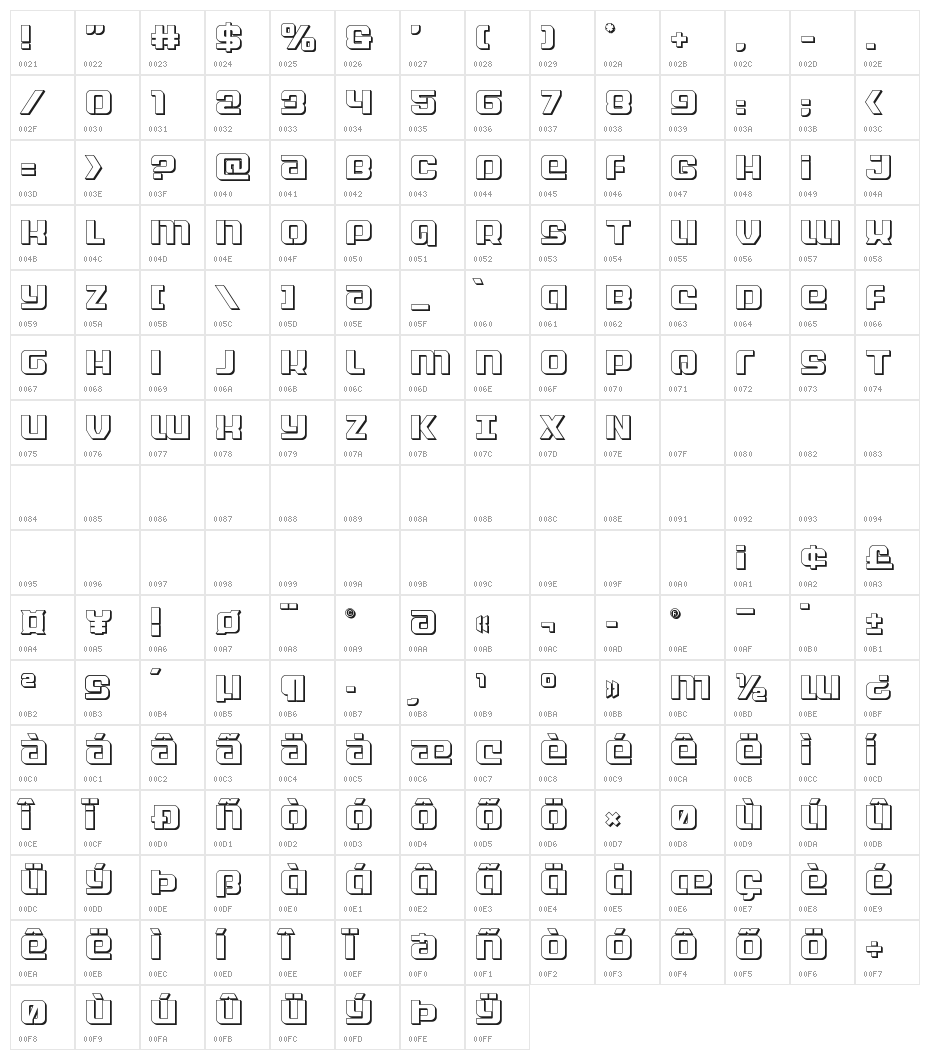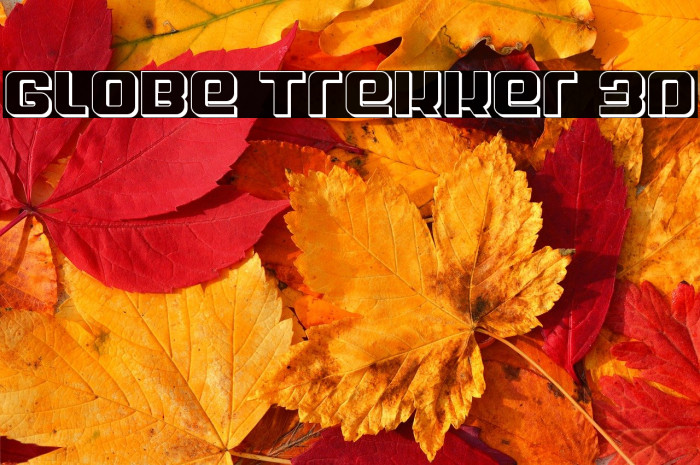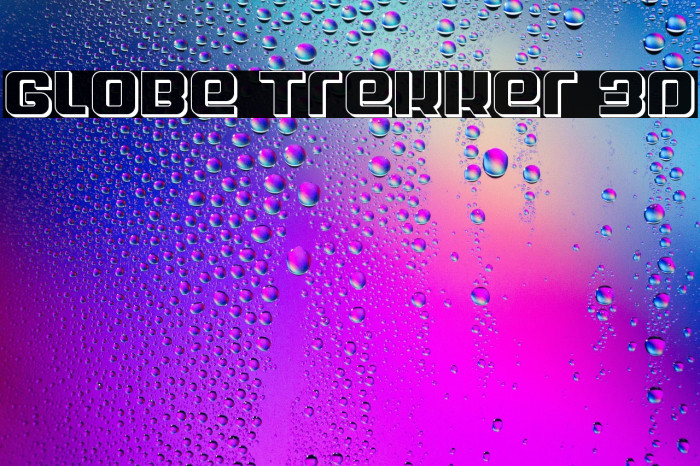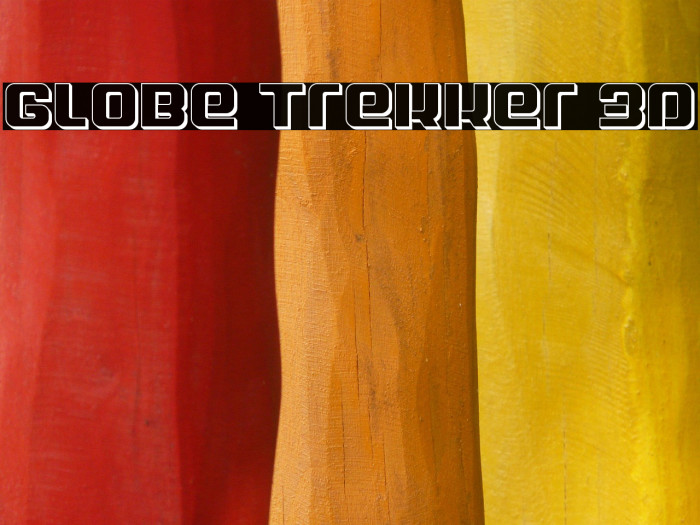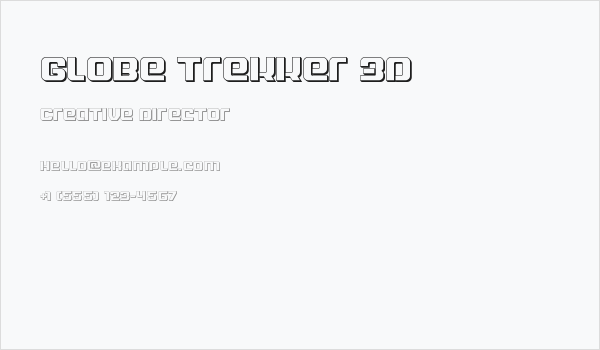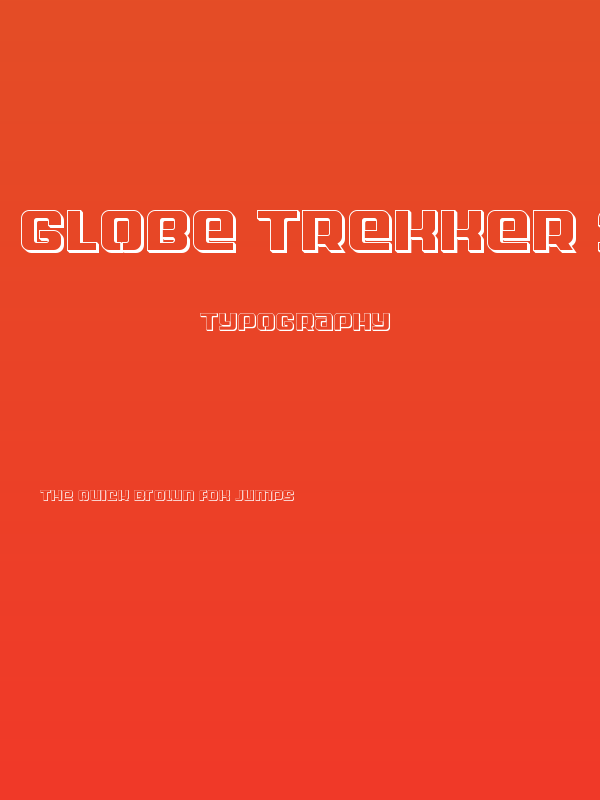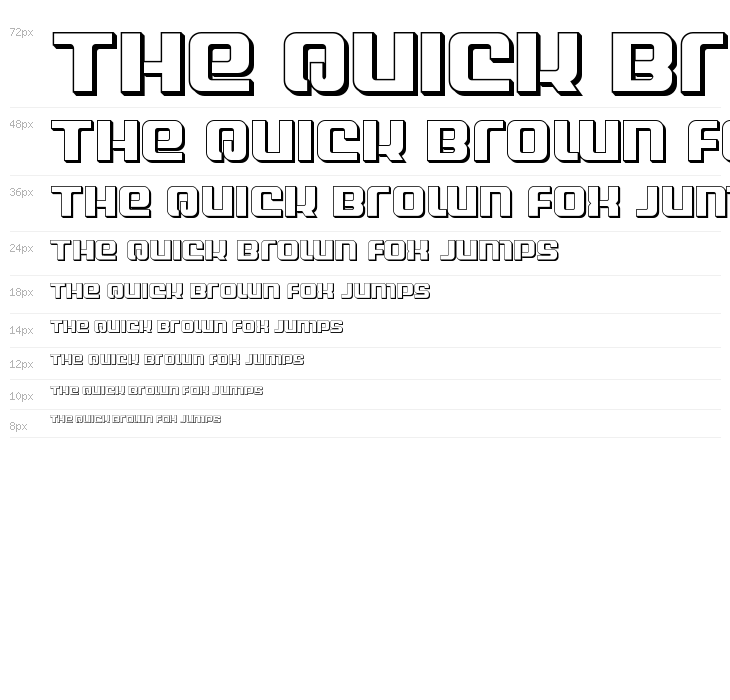
Globe Trekker 3D Font
Globe Trekker 3D Description
This font features a bold, geometric design with a three-dimensional effect. Each character is outlined, creating a hollow appearance that adds depth and visual interest. The style is consistent across uppercase and lowercase letters, as well as numbers and special characters. The font's structure is blocky and angular, with a futuristic and tech-inspired aesthetic. Its clean lines and uniformity make it highly legible, while the 3D effect provides a unique and eye-catching element. The characters are evenly spaced, contributing to a balanced and harmonious look.